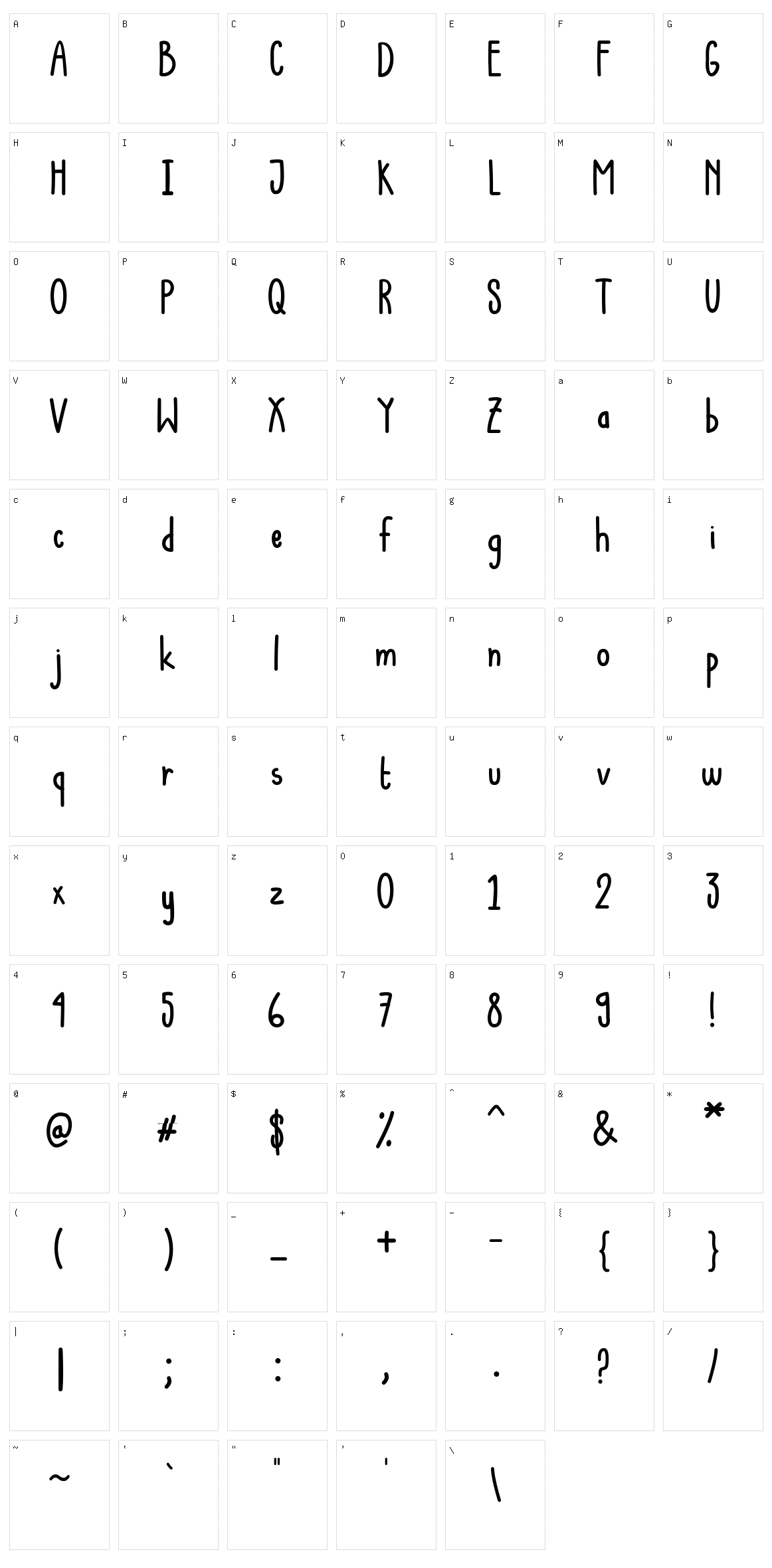
The free font New Student is carefully designed by Memet Saputro, showcasing a thoughtful balance of creativity and usability and falls under the Script font style. When you download the ZIP file, it contains only 17.4 KB of font files, making it lightweight and quick to download. Please review the license details below to understand permitted usage and distribution rights. If license information is not available, we recommend using this font for personal projects only or contacting the author directly for commercial usage permissions.